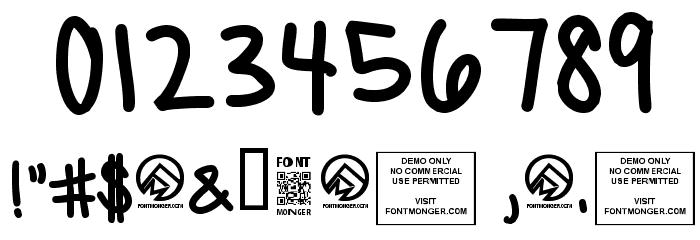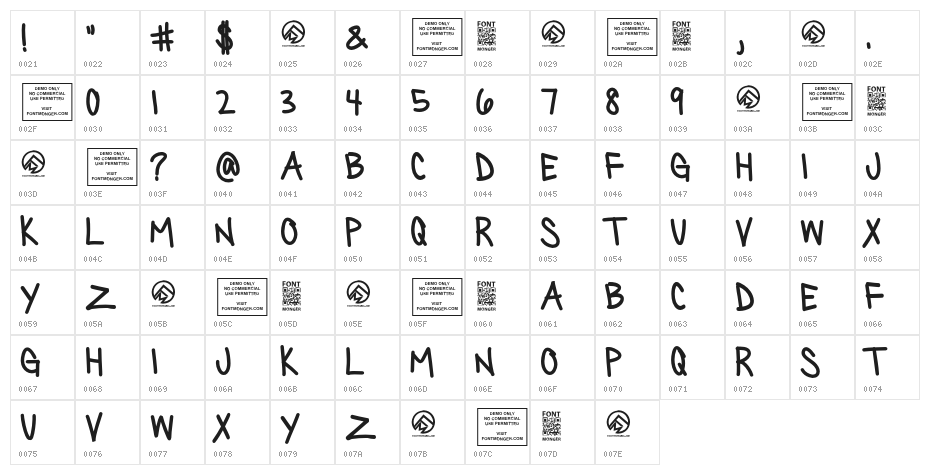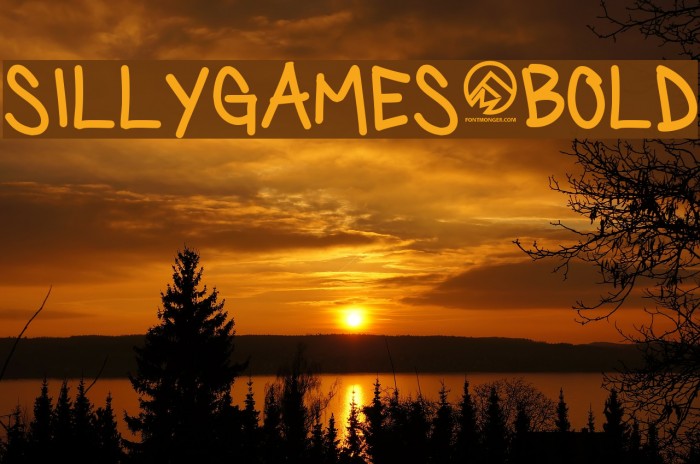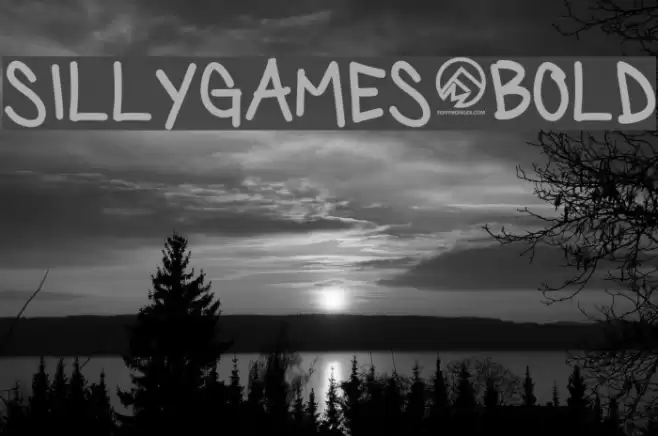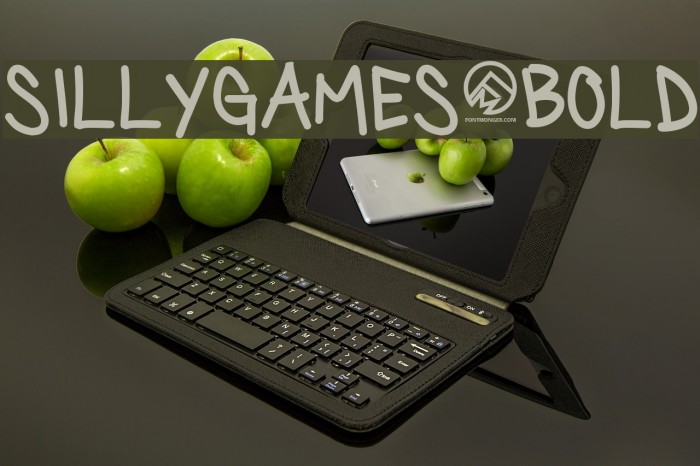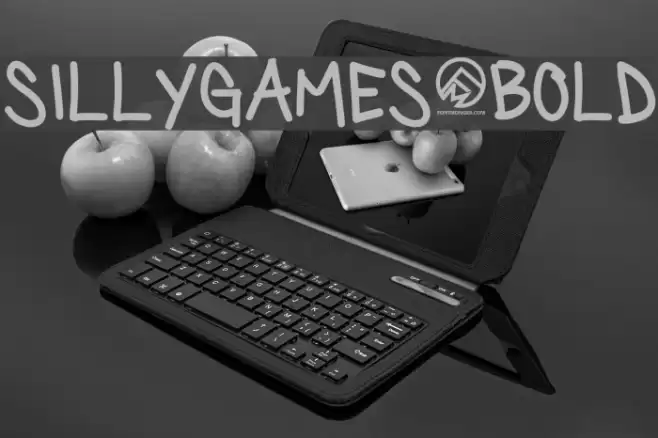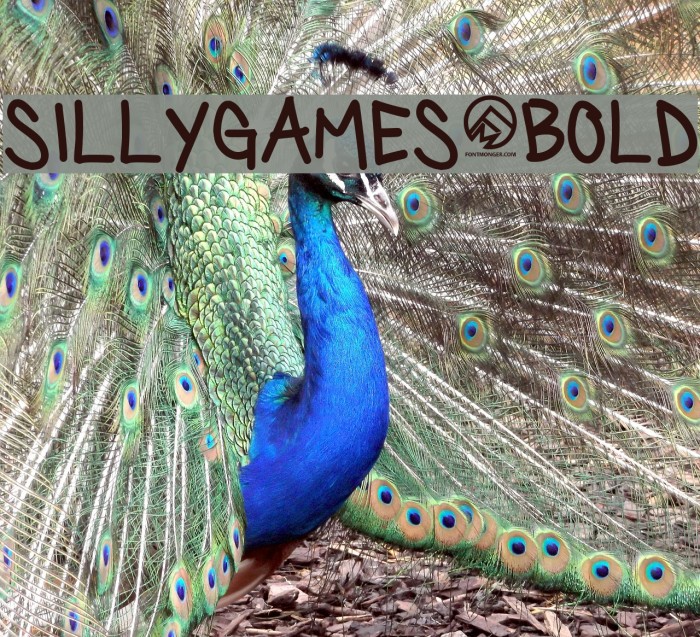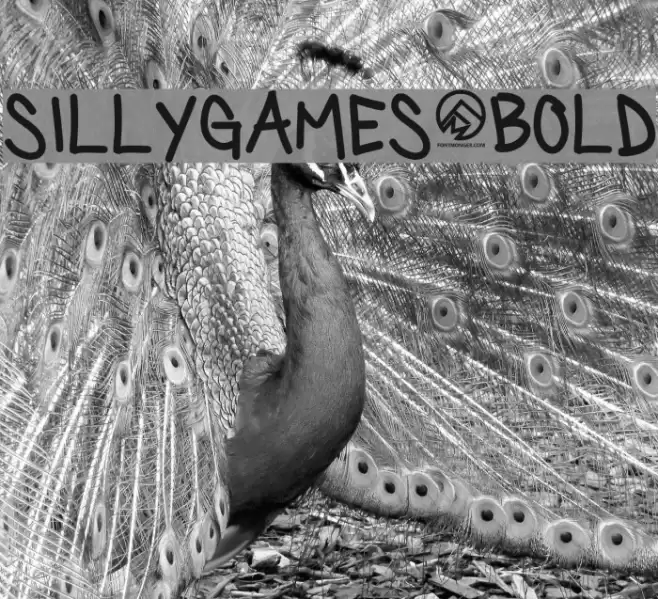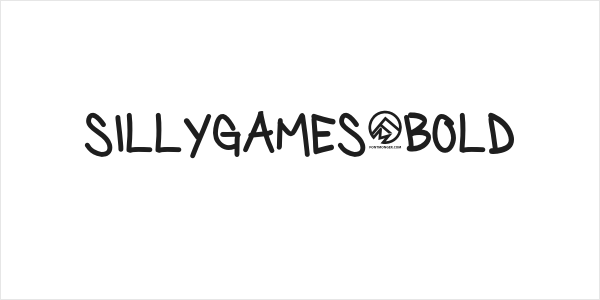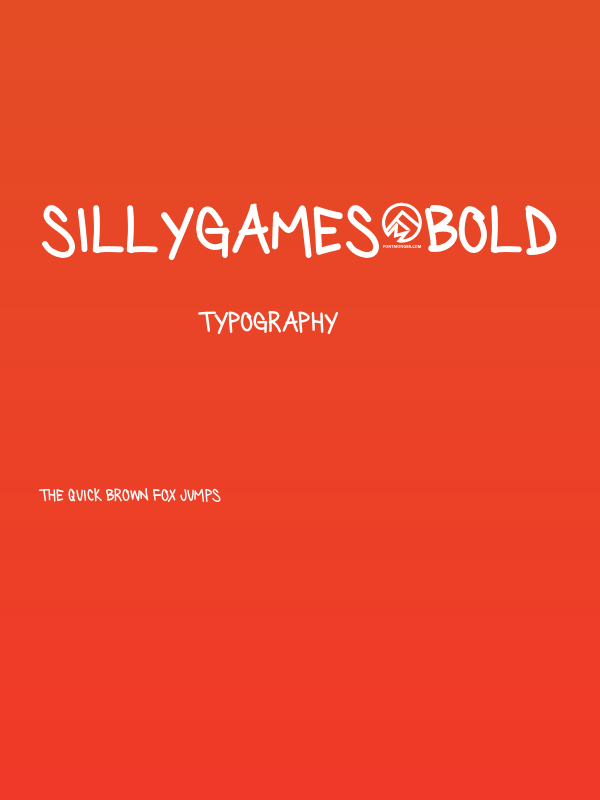
SillyGames-Bold Font
SillyGames-Bold Description
This playful and bold font features a handwritten style with a casual and informal appearance. The letters are rounded and slightly irregular, giving it a friendly and approachable feel. The uppercase and lowercase characters maintain a consistent style, with a slight slant that adds to its dynamic look. The numbers and special characters are designed to match the overall aesthetic, making it versatile for various uses. The font's boldness ensures readability while its unique style makes it stand out.
| Proposed Projects | Ideal for children's books, playful branding, casual invitations, and creative posters. |